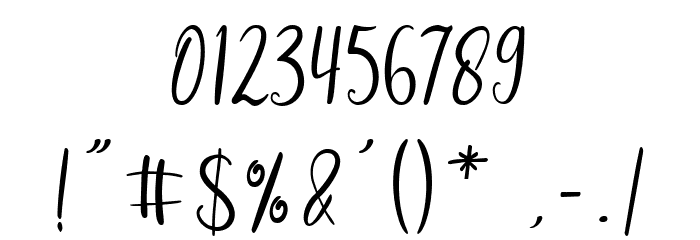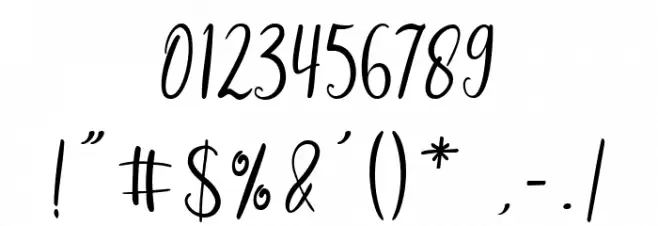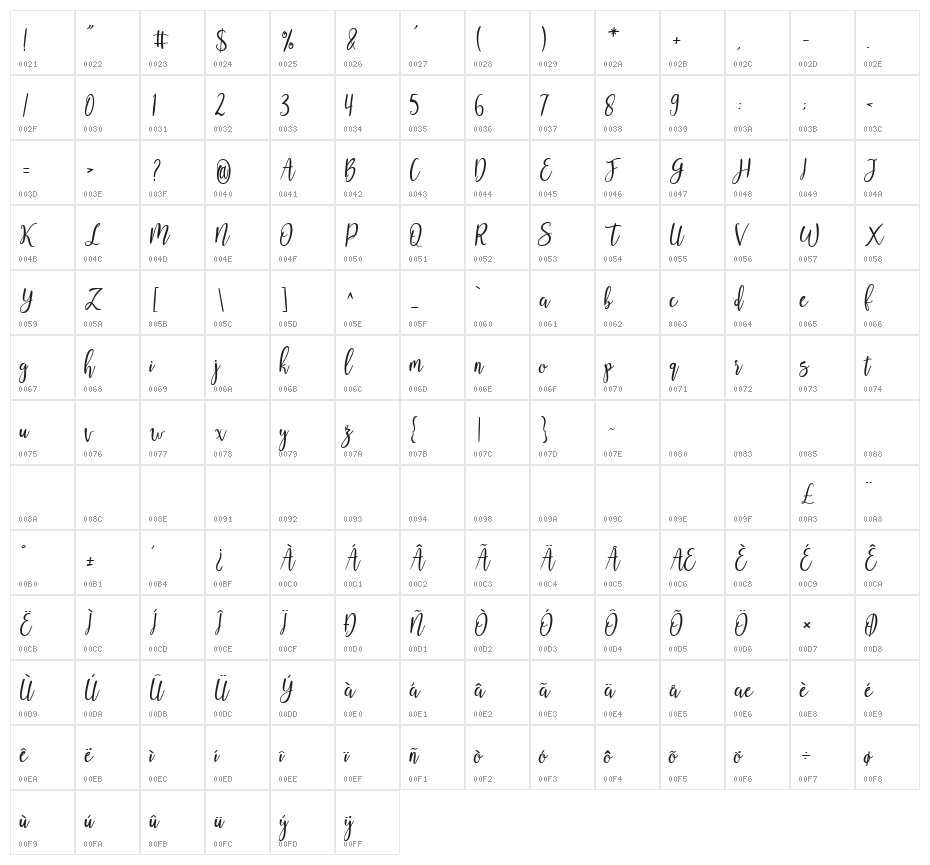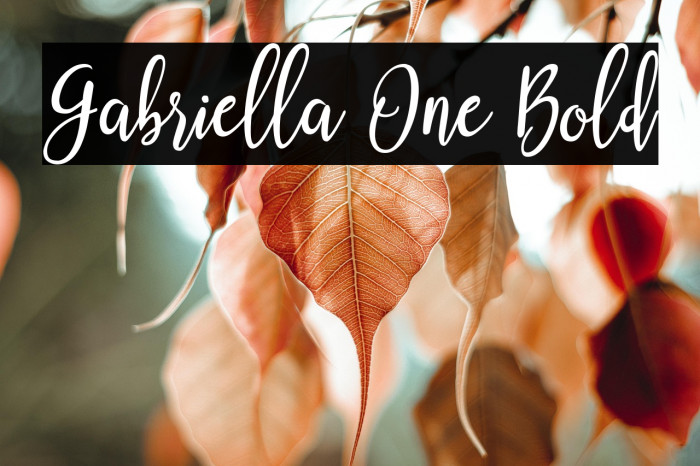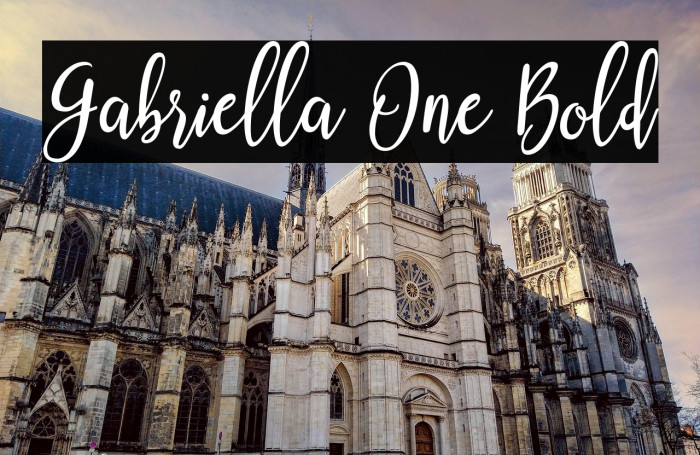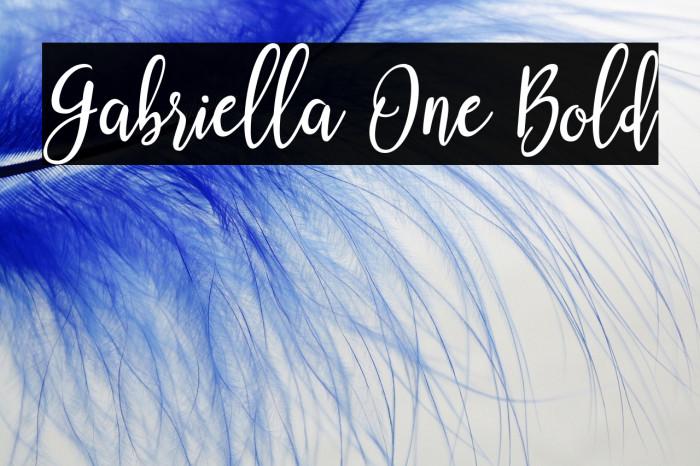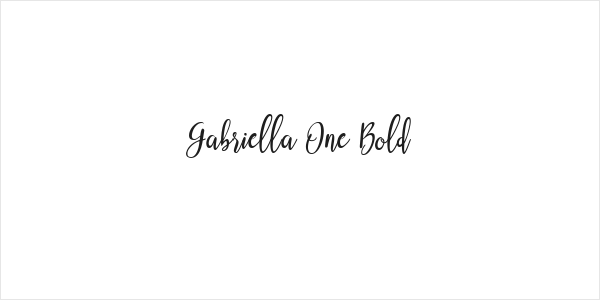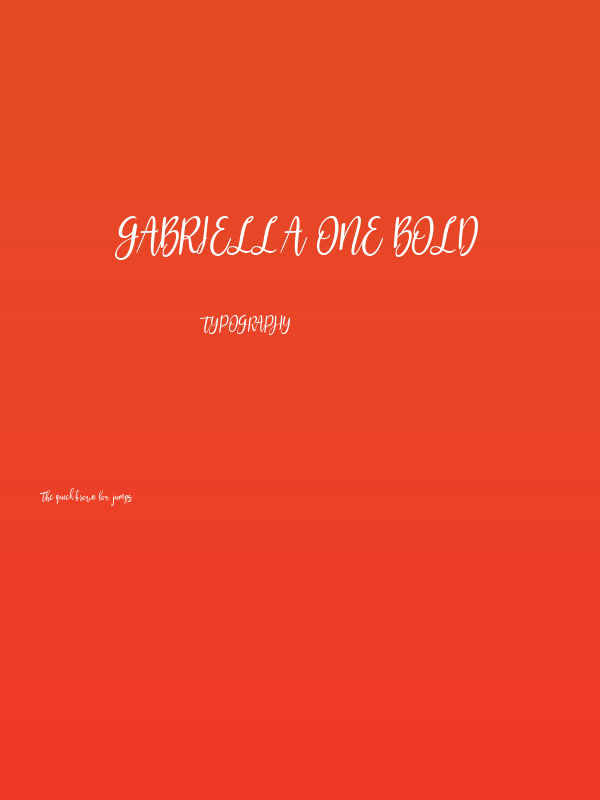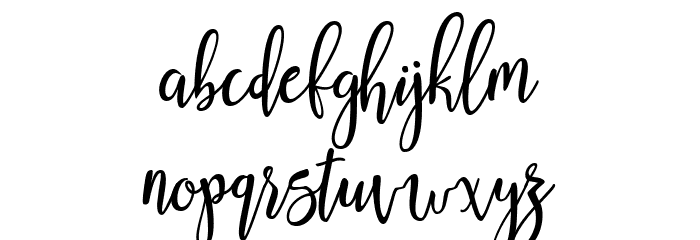
Gabriella One Bold Font
Gabriella One Bold Description
This font features a dynamic and flowing script style, characterized by its elegant and cursive letterforms. The uppercase letters are bold and sweeping, with a sense of movement that adds a touch of sophistication. The lowercase letters maintain a consistent flow, enhancing readability while preserving the decorative nature of the script. The numerals are clear and distinct, complementing the overall style. Special characters are well-integrated, maintaining the font's cohesive look. This font is ideal for projects that require a personal and artistic touch.
Use CaseLogos, Headlines, Invitations
Proposed ProjectsIdeal for wedding invitations, greeting cards, branding, and logo design.